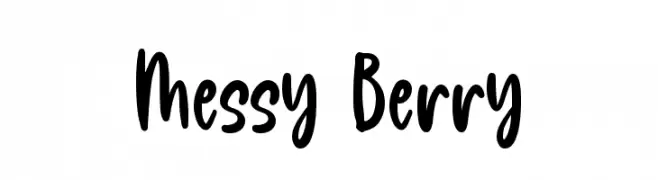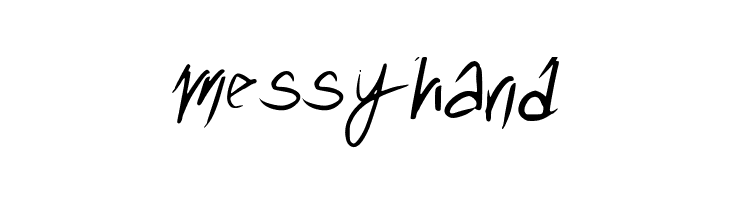
A bold, expressive font with brush-like strokes and a raw, artistic feel.
A bold, handwritten font with a playful and energetic style.
A playful handwritten font with a casual and friendly appearance.
A playful, bold, and cartoonish font with rounded, hand-drawn characters.
A playful, handwritten-style font with a messy ink pen appearance.
A flowing, elegant script font with a modern handwritten style.
A bold, expressive script font with brush-like strokes and a textured, hand-drawn appearance.
A playful, hand-drawn font with a sketch-like appearance.